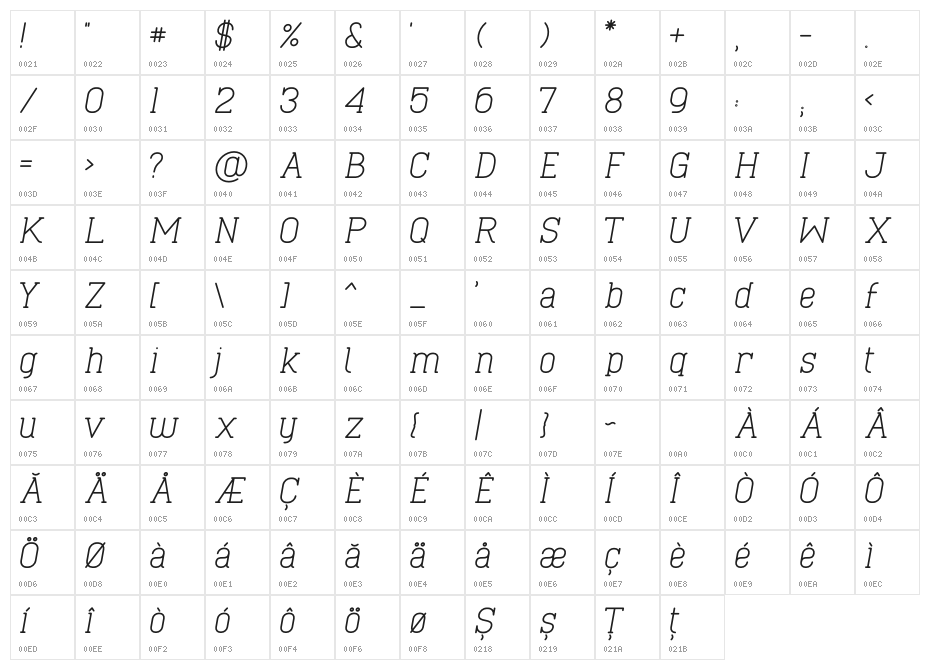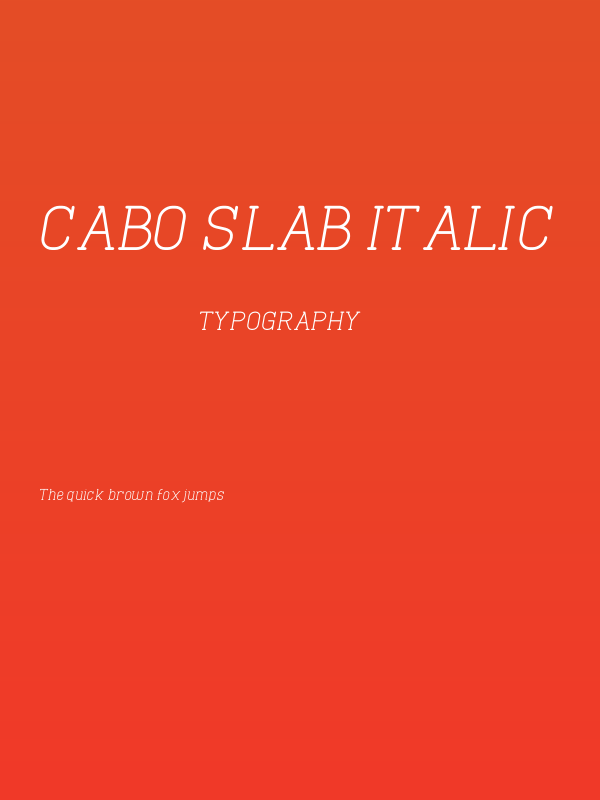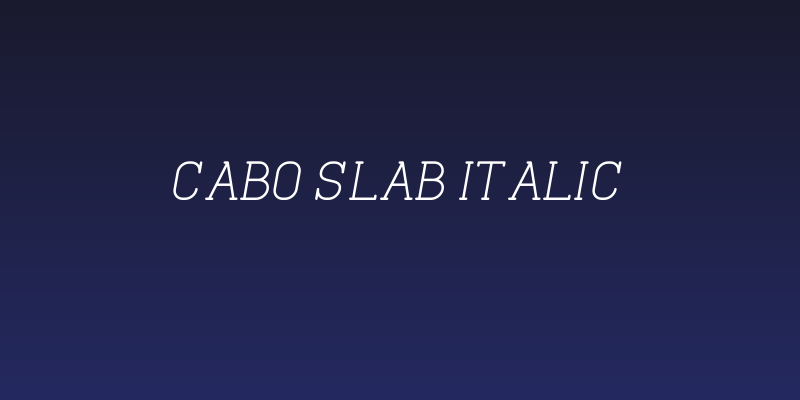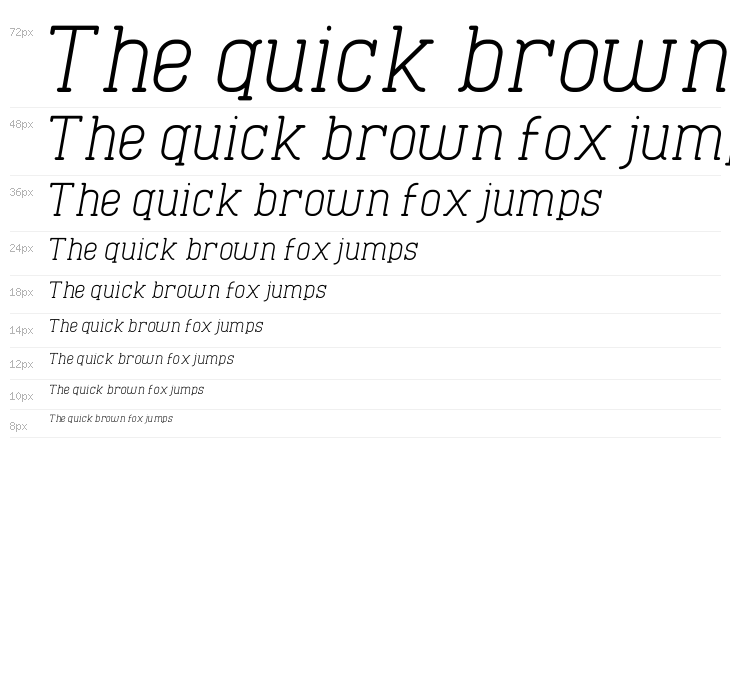
Cabo Slab Italic Font
Cabo Slab Italic Description
This font features a modern slab serif style with a distinct italic slant, giving it a dynamic and sophisticated appearance. The characters are well-defined with a consistent stroke width, providing a clean and readable look. The uppercase and lowercase letters maintain a uniform height, while the numerals are proportionate and easy to distinguish. Special characters are crafted with the same attention to detail, ensuring versatility across various applications. The overall design is sleek and professional, making it suitable for both digital and print media.
| Proposed Projects | Ideal for branding, editorial design, and advertising where a modern yet classic touch is desired. |